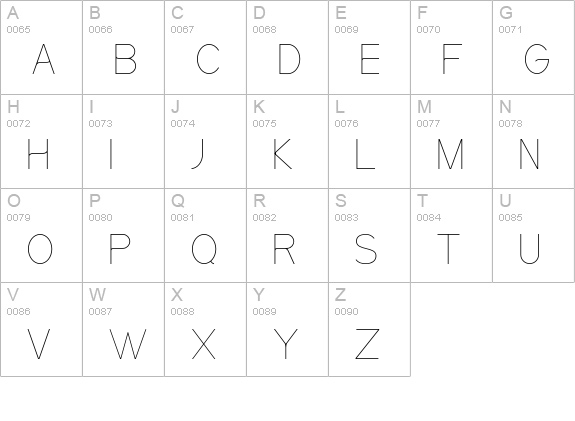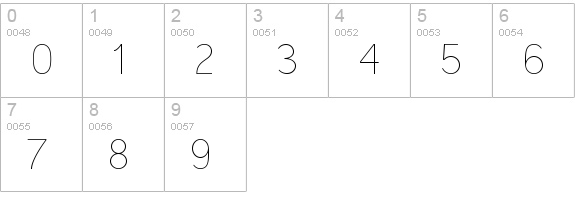
Kirvy Thin Font Details
Kirvy Thin is a delicate, low-contrast variant in the Kirvy typeface family \xE2\x80\x94 well suited to fashion editorial, minimal branding, and high-contrast display.
Kirvy Thin is a stunningly beautiful font that effortlessly combines elegance with modernity. Its delicate and refined design makes it the perfect choice for projects that require a touch of sophistication. With its thin and graceful letterforms, Kirvy Thin exudes a sense of elegance and grace, making it ideal for wedding invitations, luxury branding, and high-end editorial design. This font is not only visually captivating, but it also offers exceptional legibility, making it easy to read even at small sizes. The perfectly balanced letterforms and ample spacing ensure that each character stands out, allowing the reader to effortlessly absorb the message. One of the best things about Kirvy Thin is that it is available for free download at FontsMarket.com. This means that designers and creatives can effortlessly access this exquisite font without any cost, making it an excellent choice for those with tight budgets or simply looking to explore new typefaces. Whether you're working on a personal project or a commercial endeavor, Kirvy Thin will elevate your design to new heights. Its versatility and timeless appeal make it suitable for a wide range of applications, from elegant logos to eye-catching headlines. So why wait? Download Kirvy Thin today from FontsMarket.com and add a touch of class and sophistication to your next design project. With its captivating beauty and free availability, this font is an absolute must-have for any designer or creative professional.